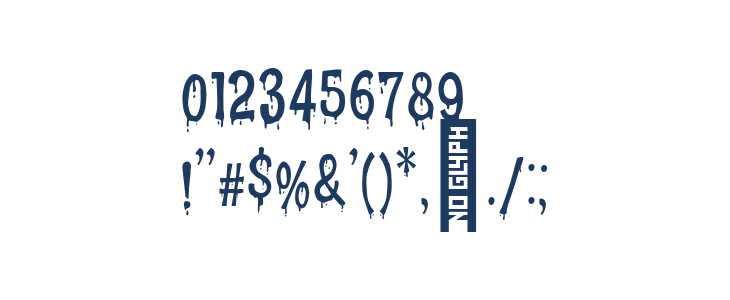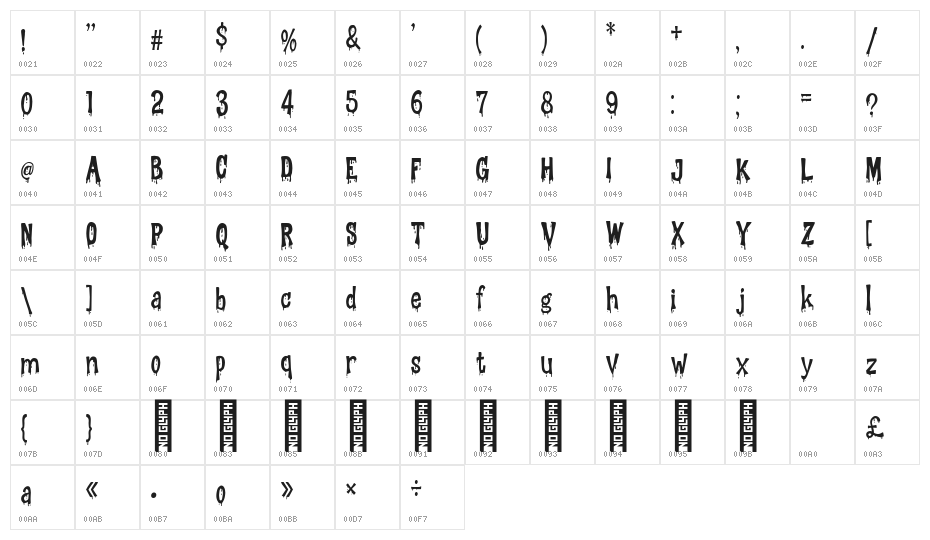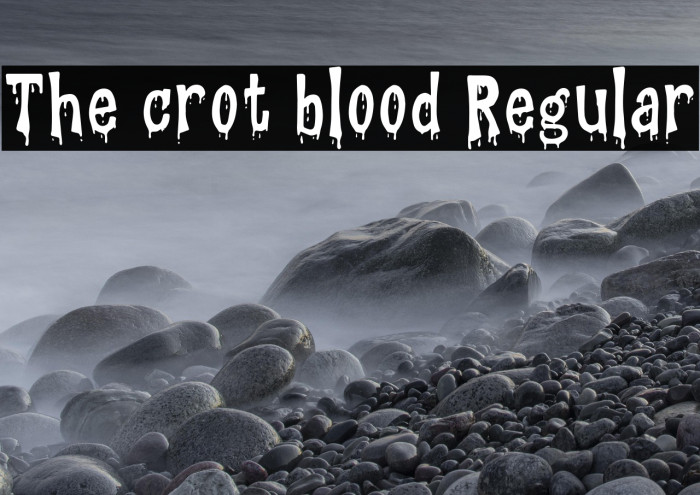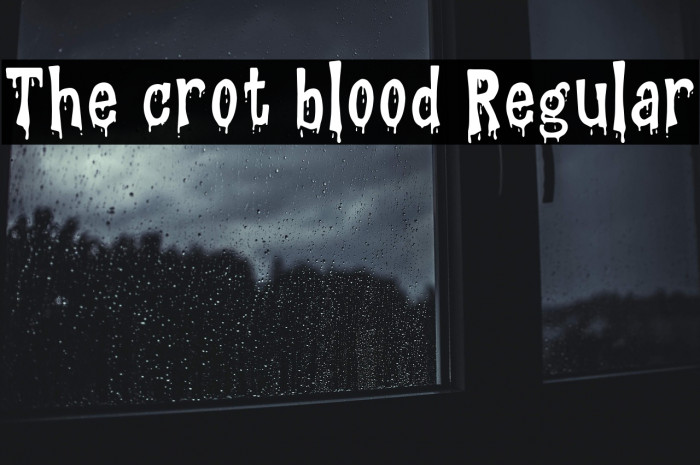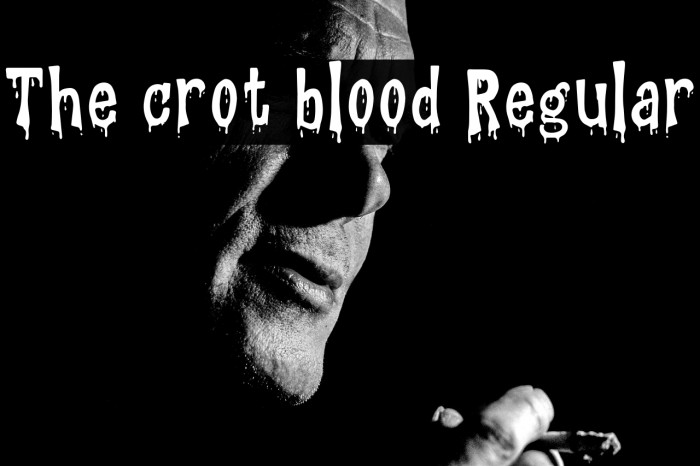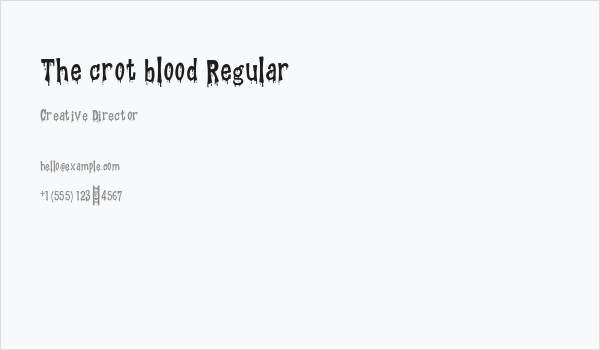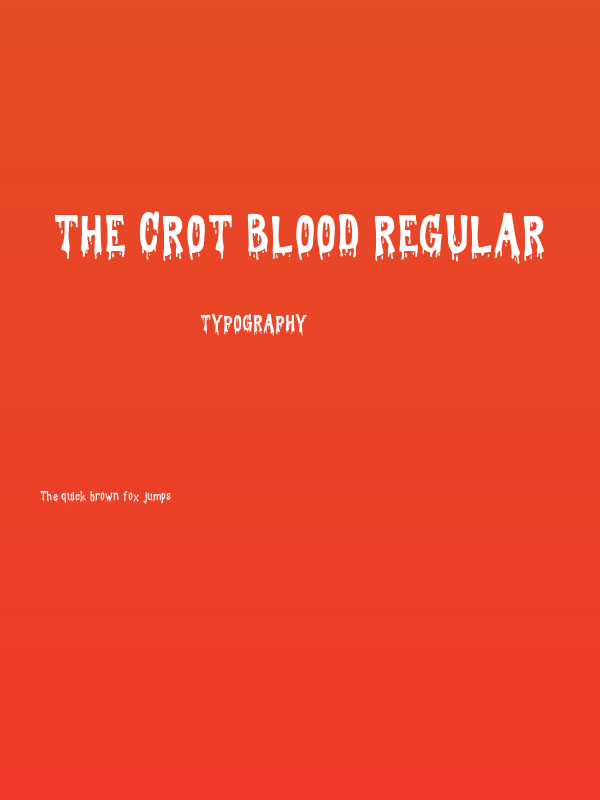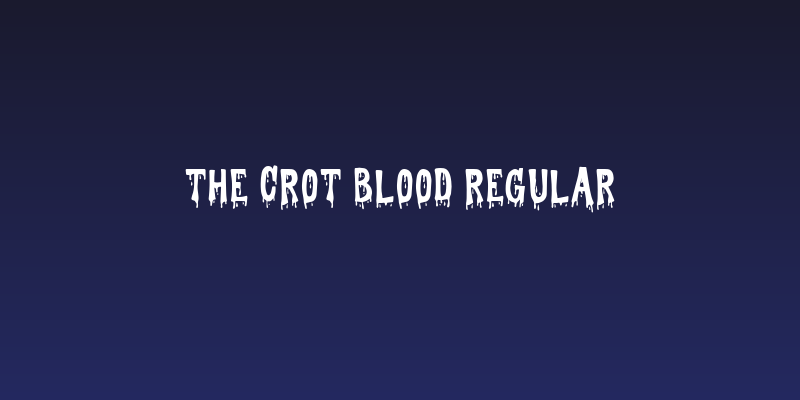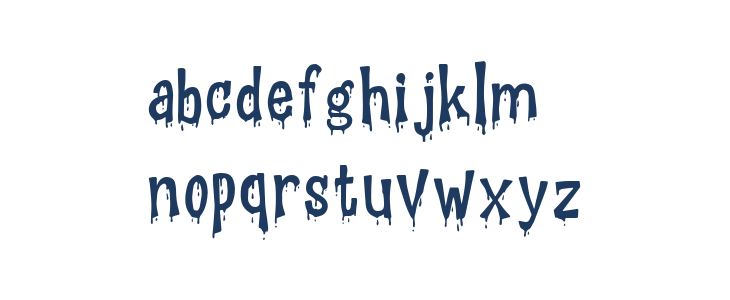
The crot blood Regular Font
The crot blood Regular Description
This font features a unique and eye-catching design with a dripping effect that gives it a spooky and eerie appearance. The characters are bold and have a playful yet sinister style, making them perfect for Halloween-themed projects or anything requiring a horror aesthetic. The uppercase and lowercase letters maintain a consistent dripping motif, while the numbers and special characters follow suit, ensuring a cohesive look across all text. The font's playful horror theme makes it ideal for creative projects that need a touch of the macabre.
Proposed ProjectsIdeal for Halloween invitations, horror movie posters, themed party decorations, and spooky event flyers.